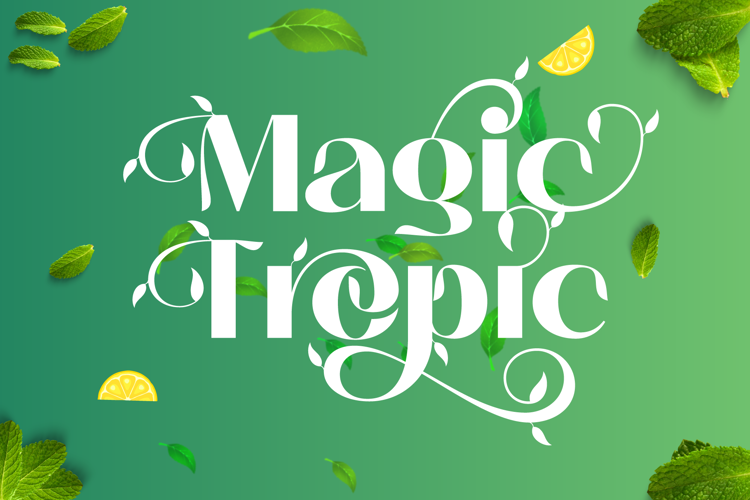
Magic Tropic Font
Magic Tropic is a unique display font inspired by the shape and beauty of tropical plants. Its elegant and artistic design brings a natural and exotic feel, making this font the perfect choice for various design projects that want to convey a fresh and natural impression.